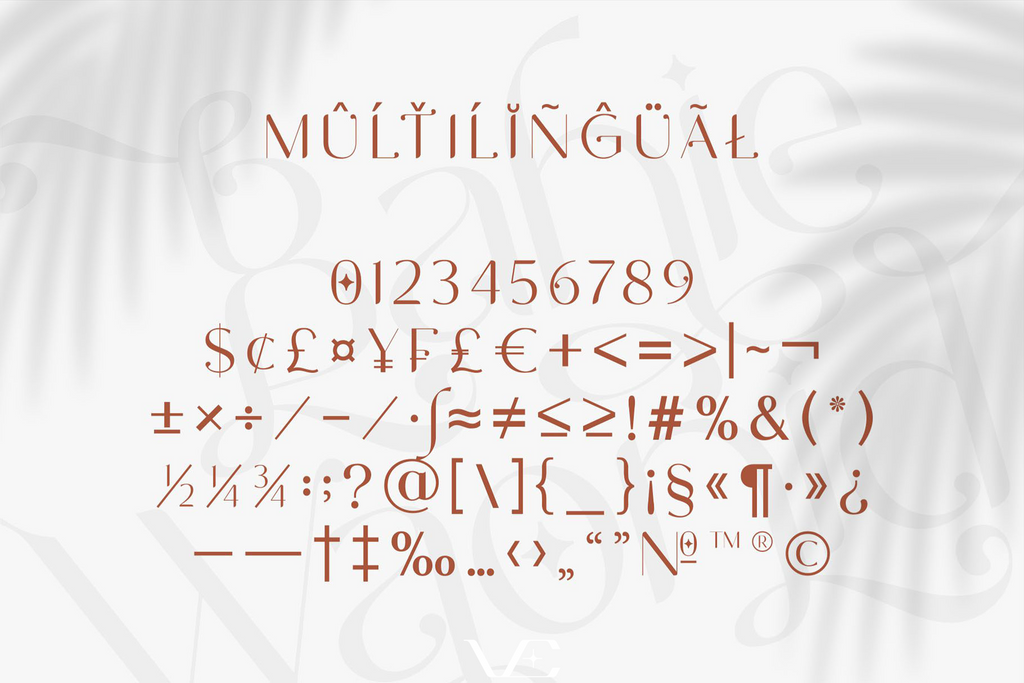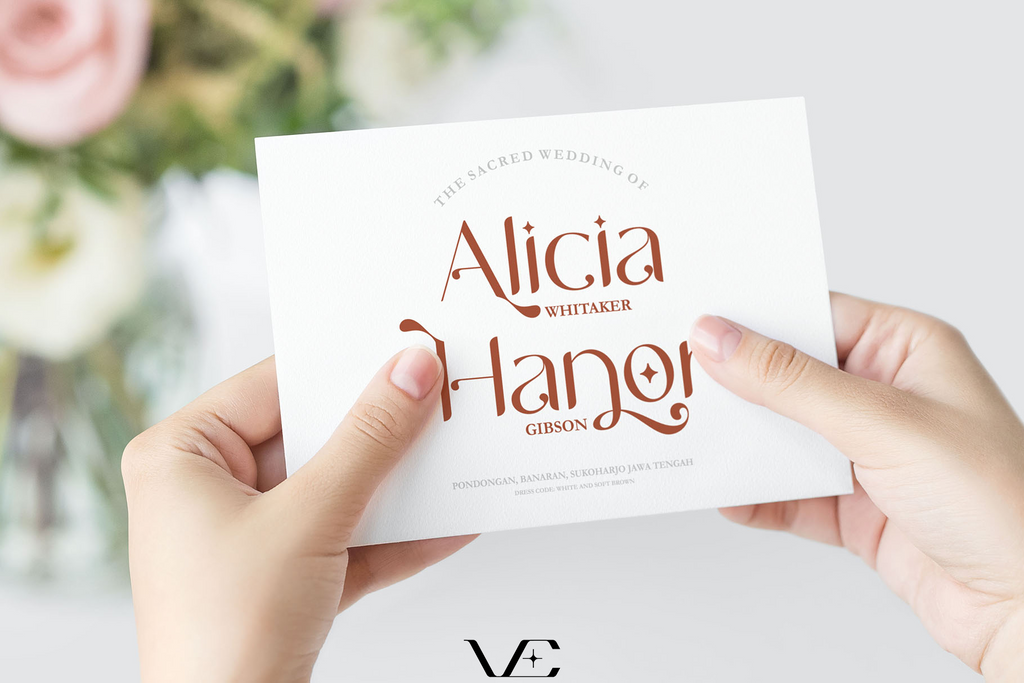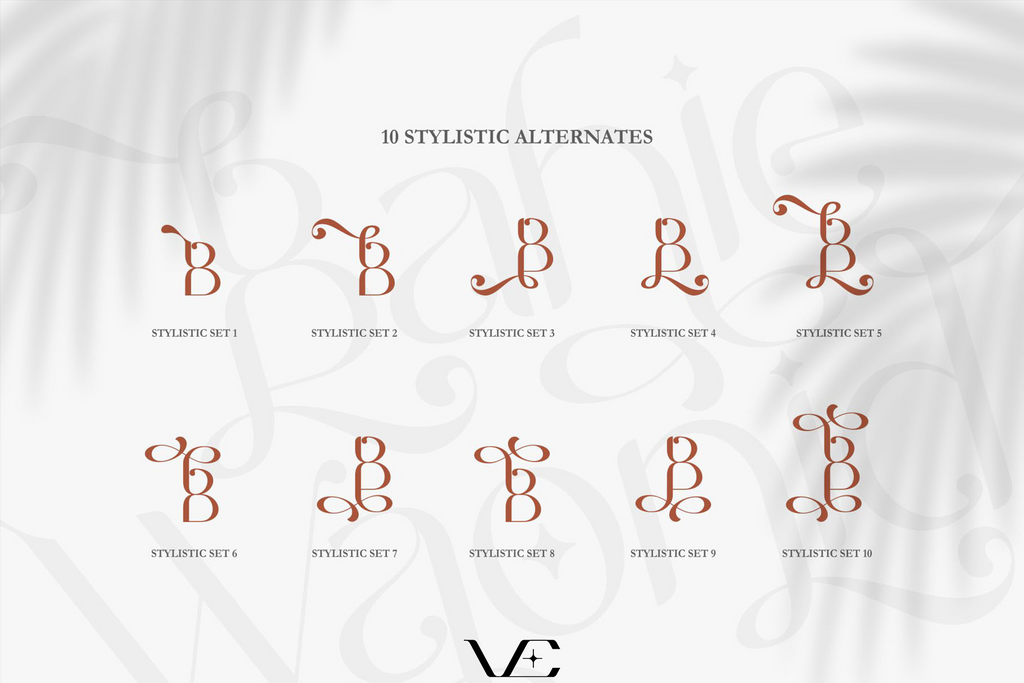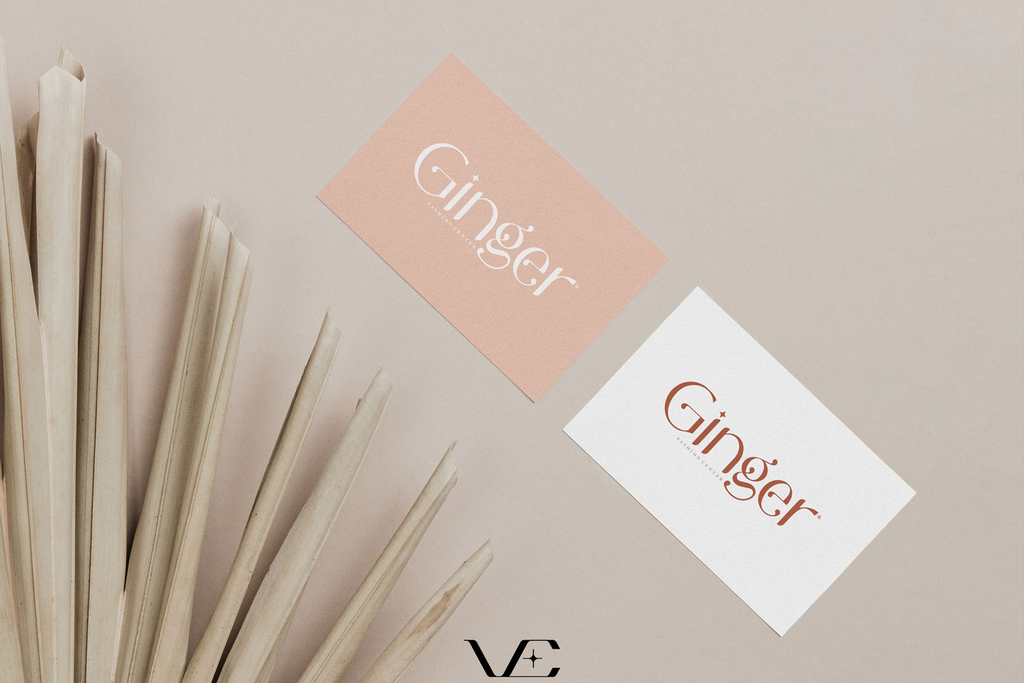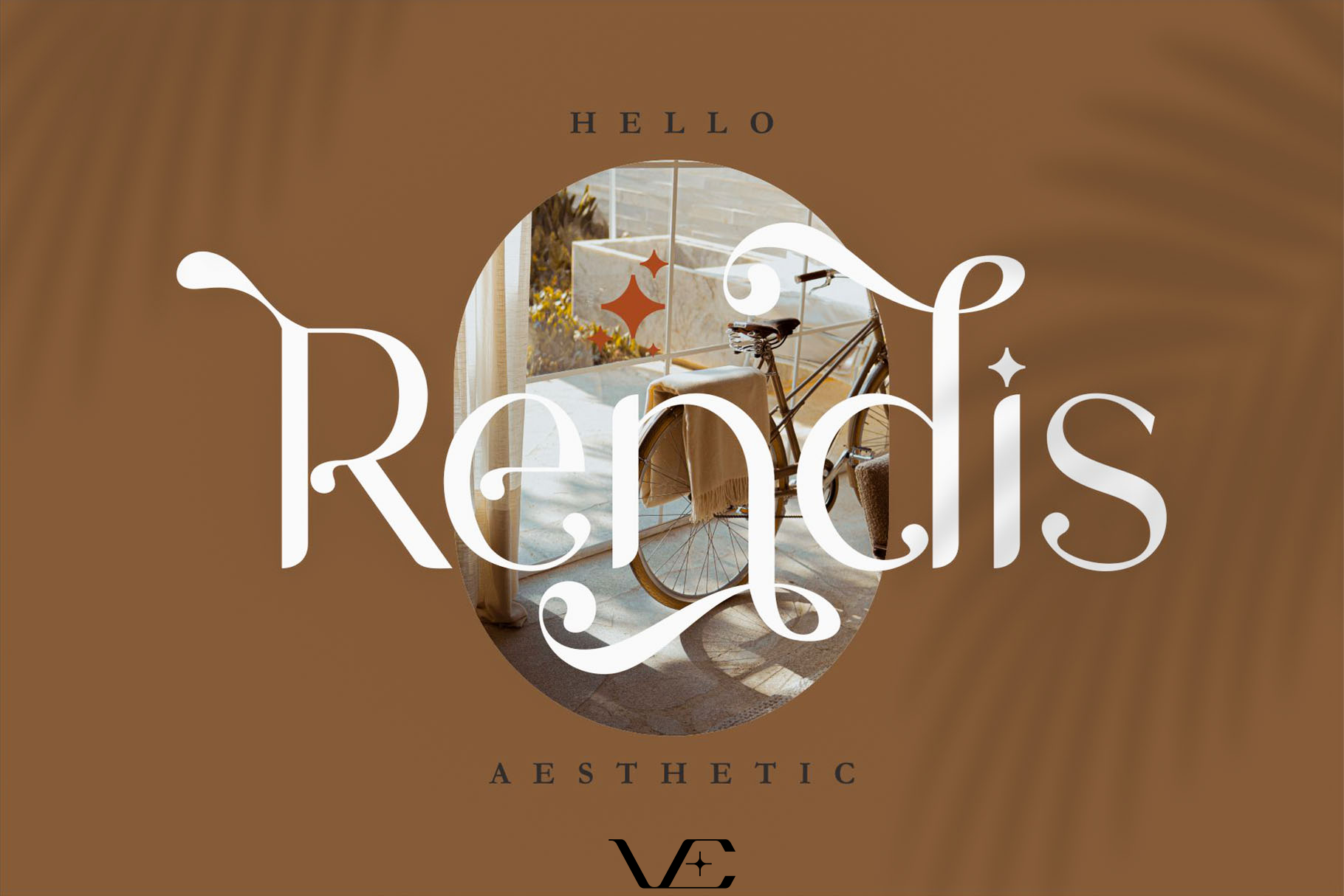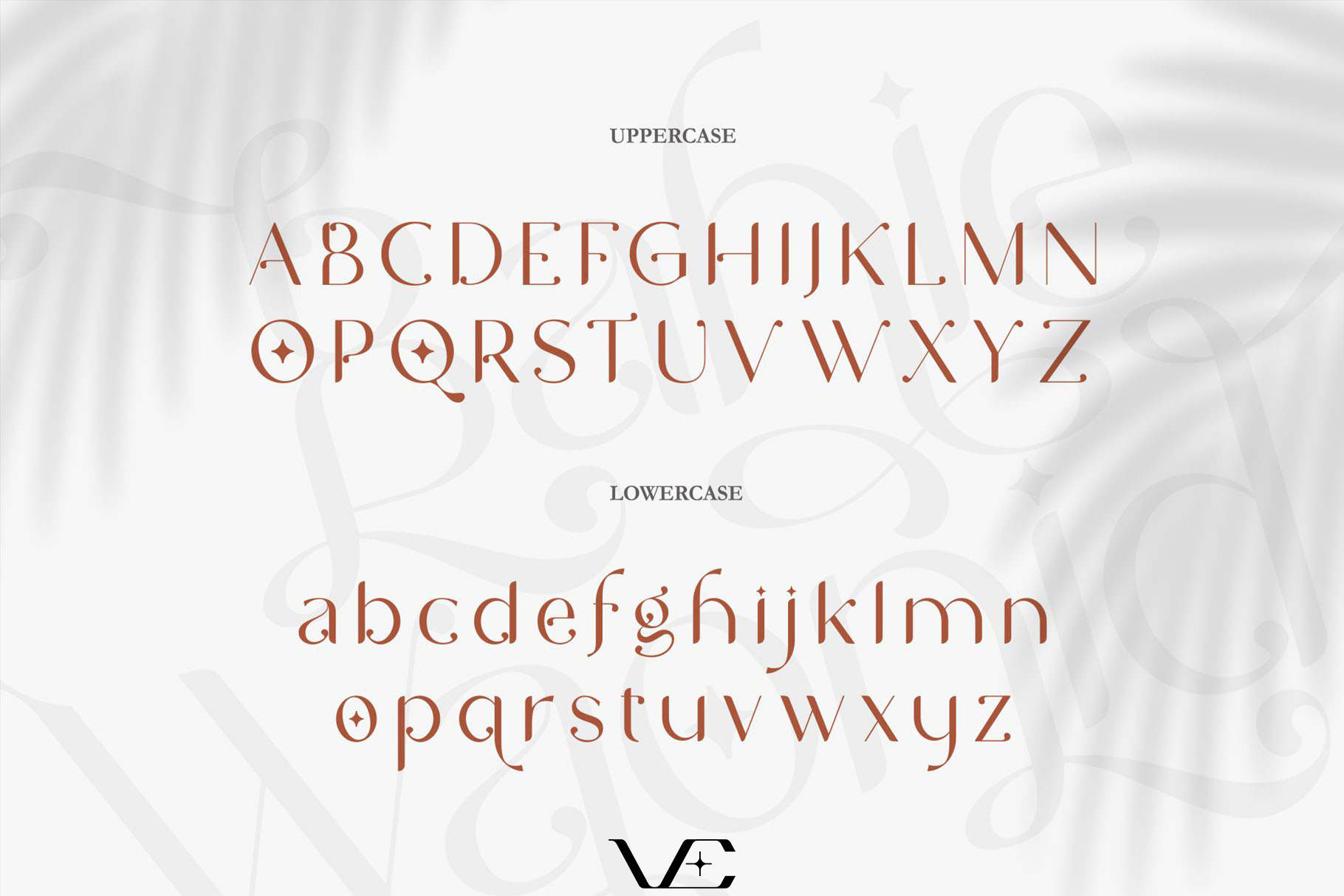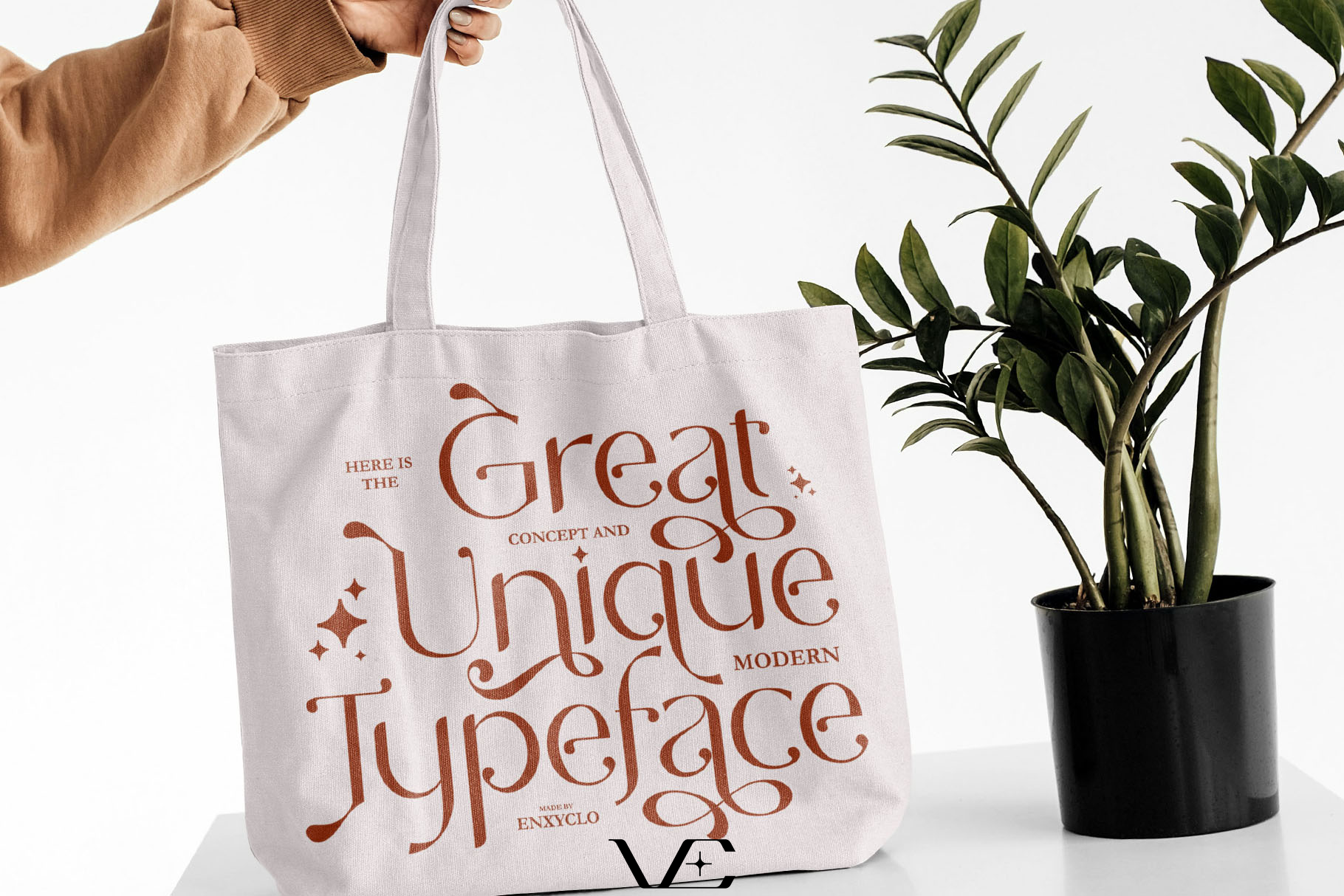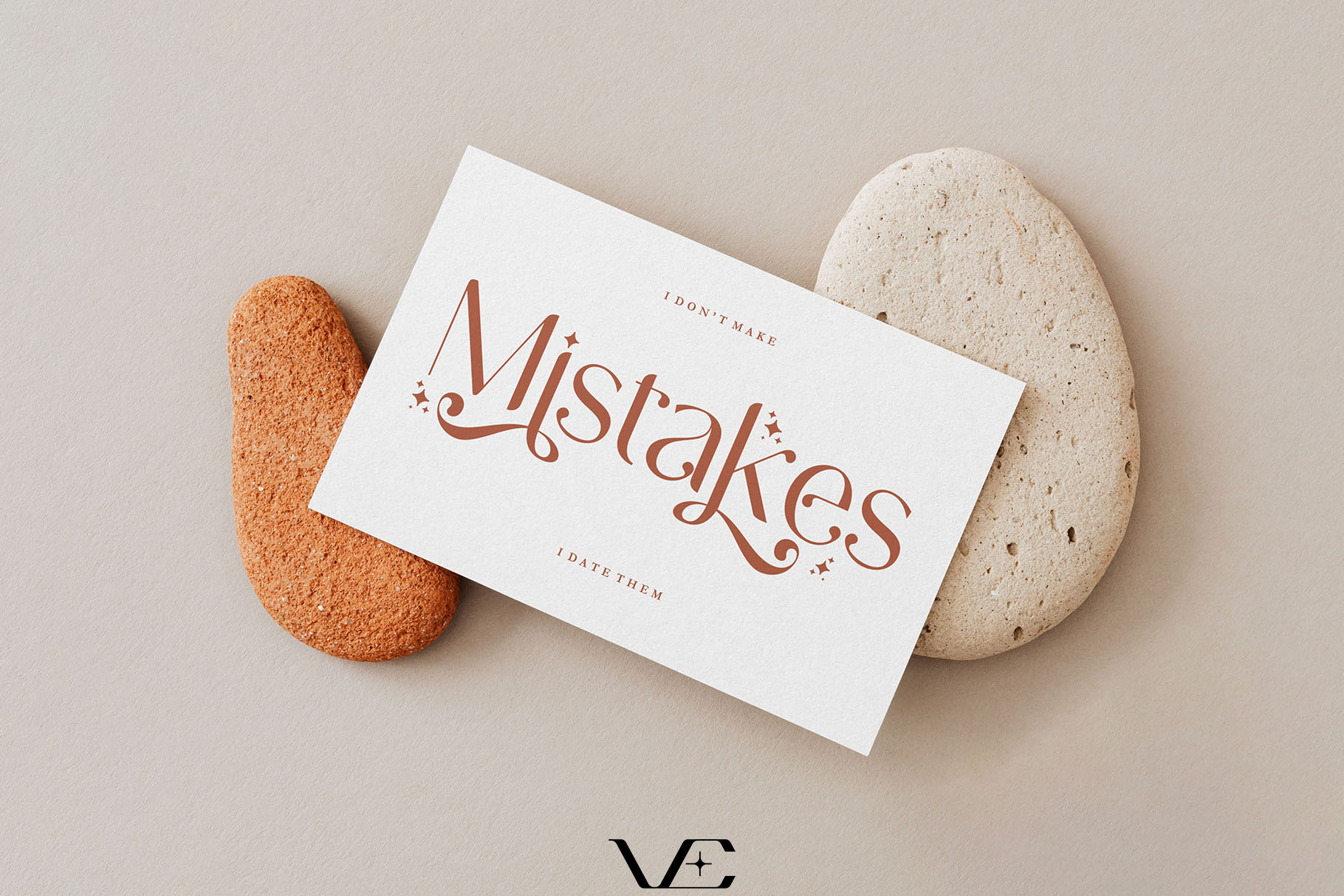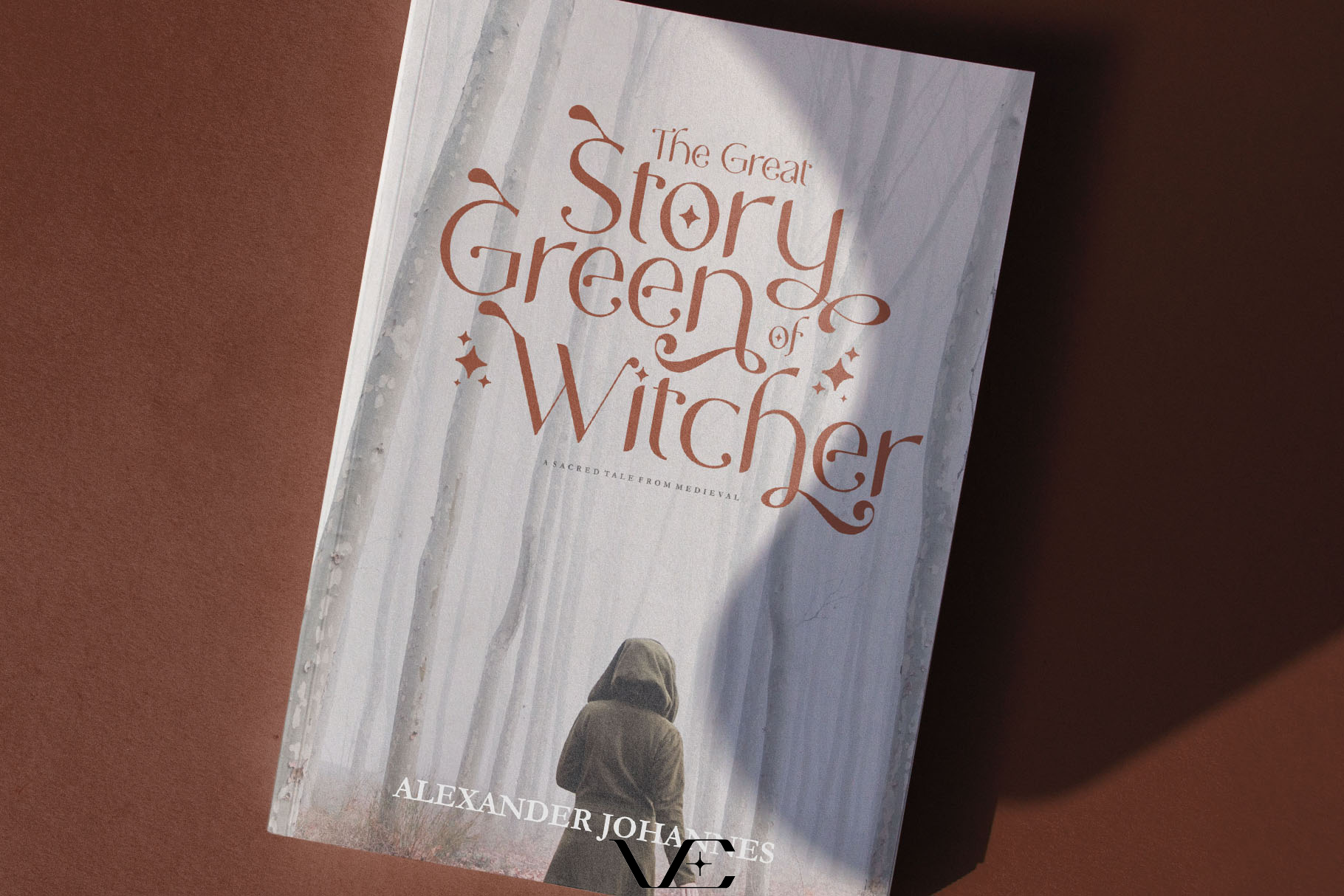
NCL BAHIE WAONID • Retro Typeface
NCL BAHIE WAONID is unique modern chic sans font with unique swashes. Masterfully designed to become a true favorite, this font has the potential to bring each of your creative ideas to the highest level! It was purposely crafted to be used in large point sizes, although it doesn’t lose its magic in small point sizes. It is perfect for creative branding, event, headline, billboard, magazines, website, titles, poster, branding, t-shirt design, and logos. No matter the topic, this font will be an incredible asset to your fonts’ library, as it has the potential to elevate any creation. With this beautiful font, absolutely you can make your project stand out from the rest.
- Contains 571 Glyphs
- Stylistic Set 1-10
- Uppercase, Lowercase & Numeral
- Punctuation, Symbol & Currencies
- Multilingual Support